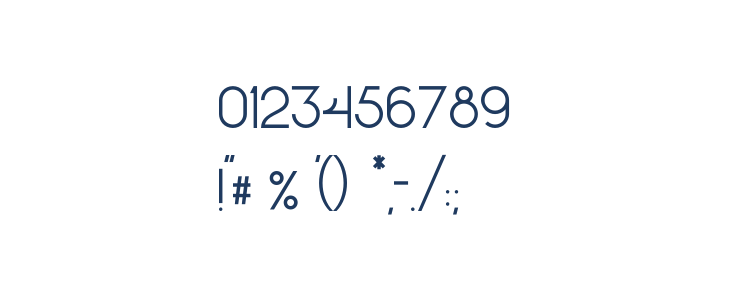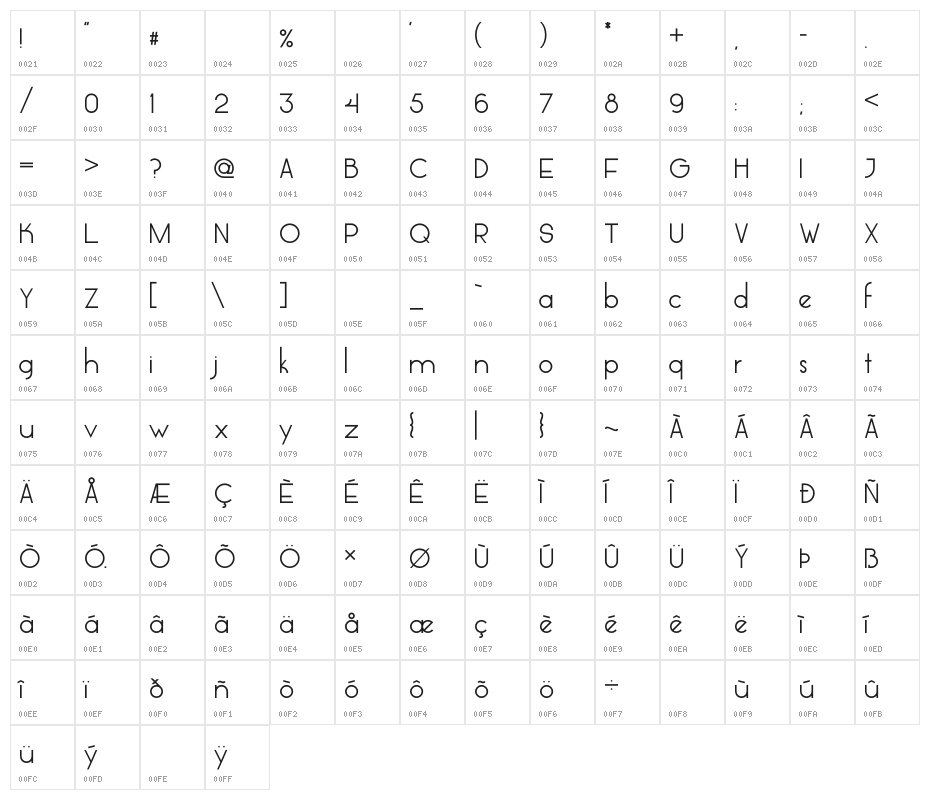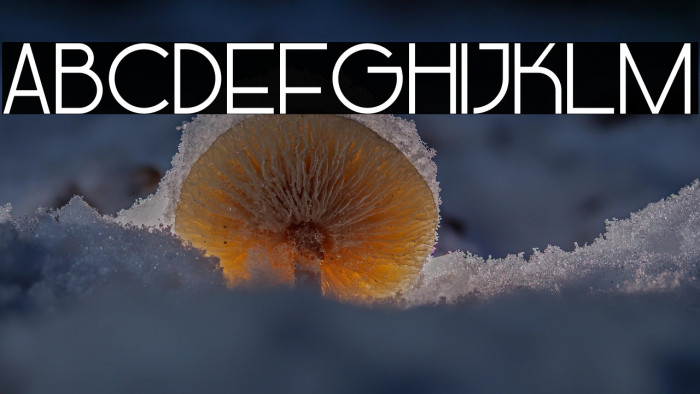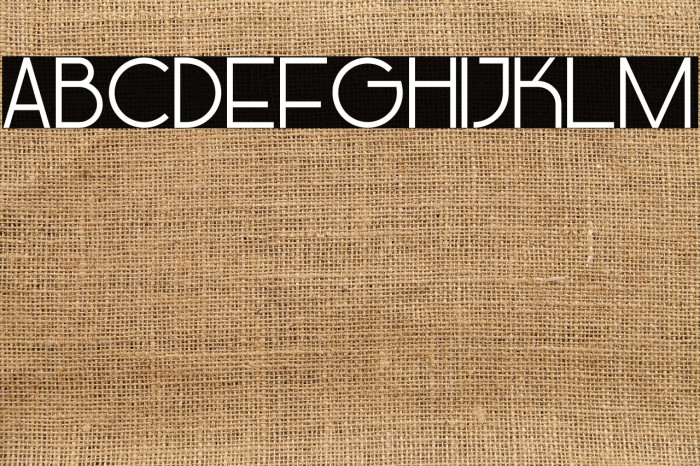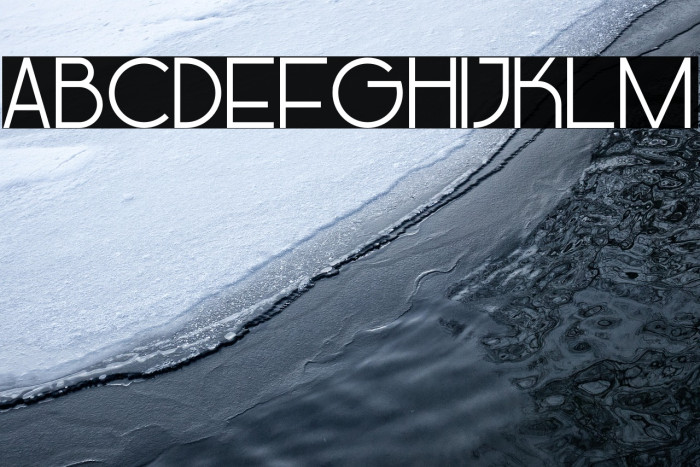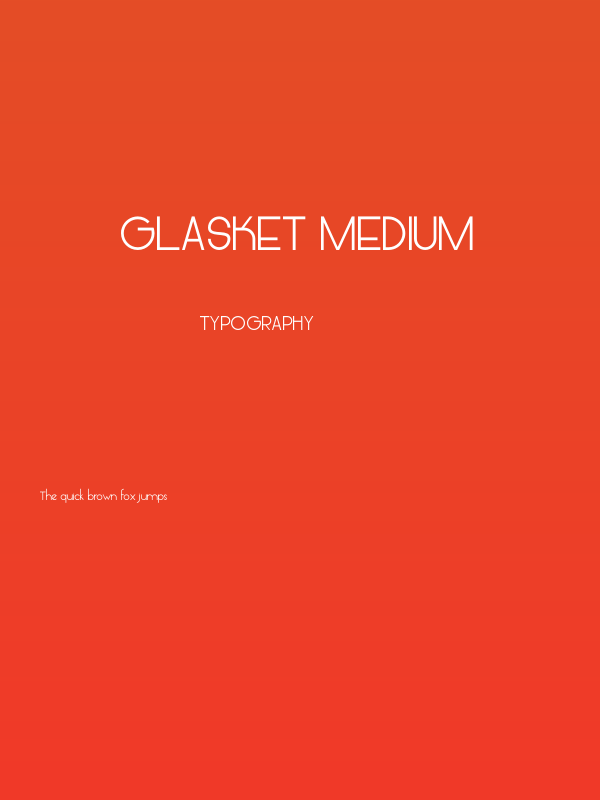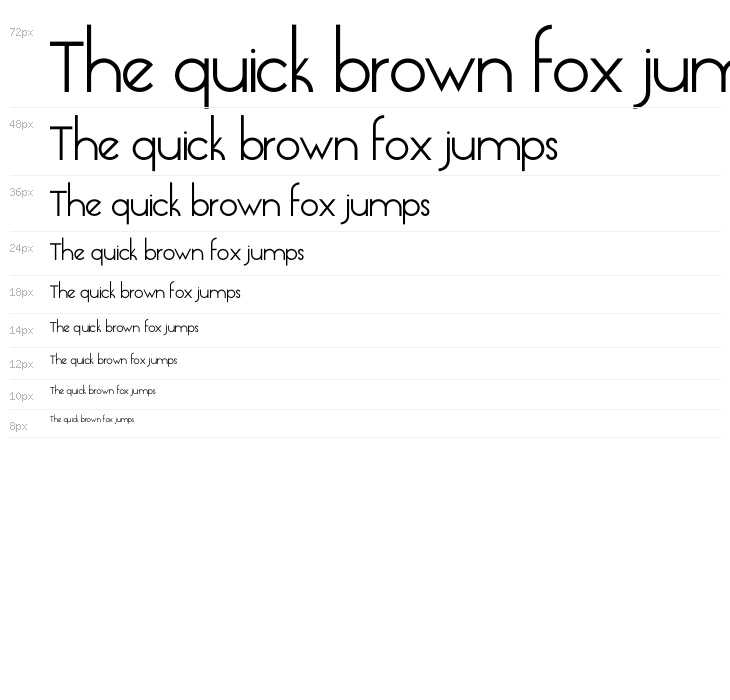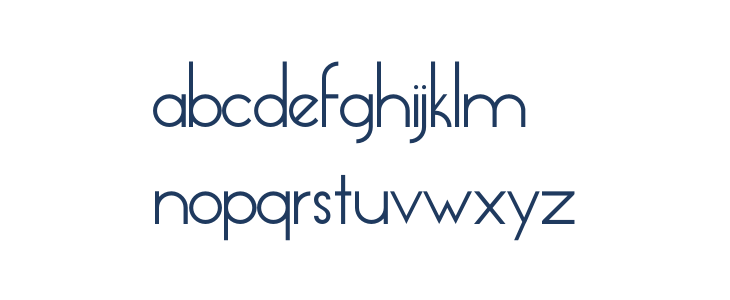
Glasket Medium Font
Glasket Medium Description
This font features a sleek and modern design with a geometric structure. The characters are clean and minimalistic, showcasing a consistent stroke width throughout. The uppercase letters are bold and assertive, while the lowercase letters maintain a smooth and flowing appearance. The numerals are clear and easy to read, complementing the overall aesthetic. Special characters are designed with the same attention to detail, ensuring a cohesive look across all glyphs. This font is versatile, suitable for both digital and print media, and can be used to create a contemporary and professional impression.
Proposed ProjectsIdeal for branding, digital media, advertising, and editorial design projects.